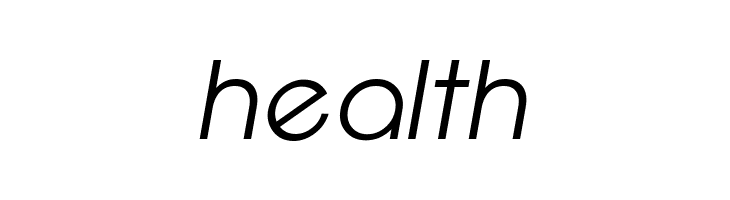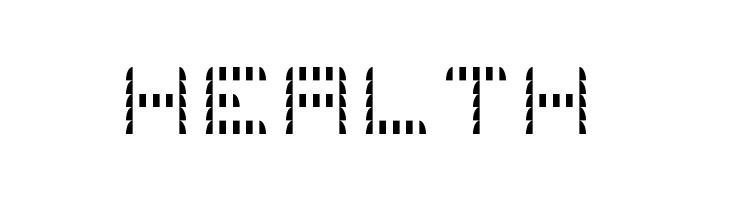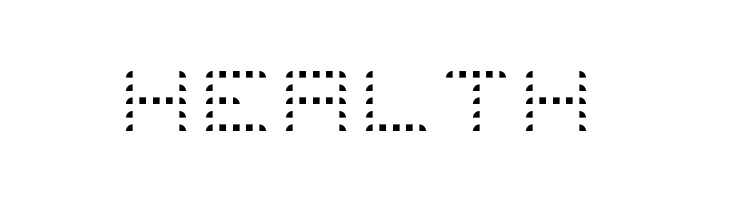
A modern, geometric sans-serif font with a clean and minimalistic design.
A modern sans-serif font with a semi-bold weight, offering clarity and versatility.
A modern, geometric sans-serif font with a clean and professional appearance.
A bold, geometric typeface with strong, uniform strokes and modern appeal.
A classic serif font with a modern touch, offering elegance and versatility.
A sleek, modern italic font with smooth curves and clean lines.
A modern sans-serif font with clean lines and geometric structure.
A modern, segmented font with a digital, futuristic look.
A modern, dotted font with a digital, pixelated style.